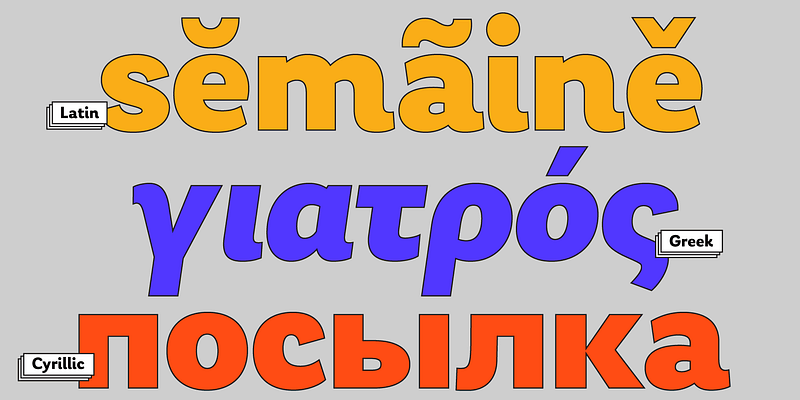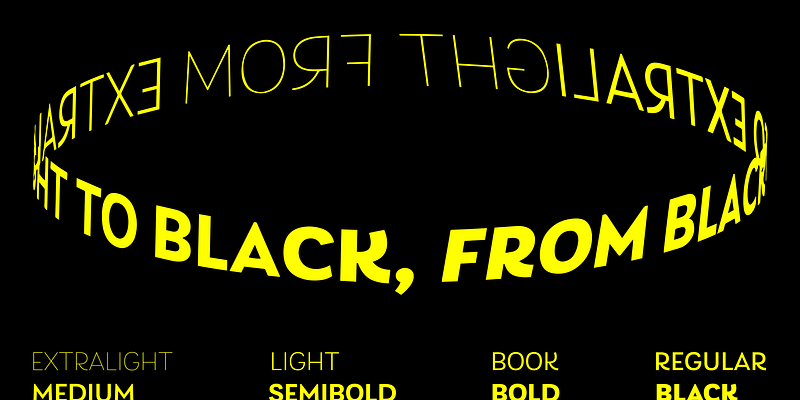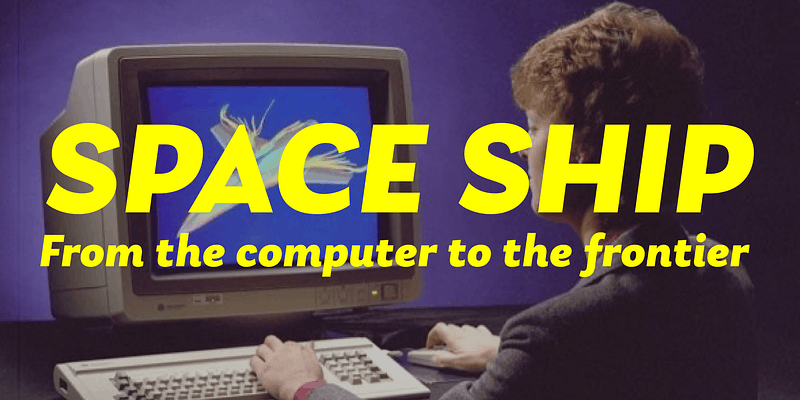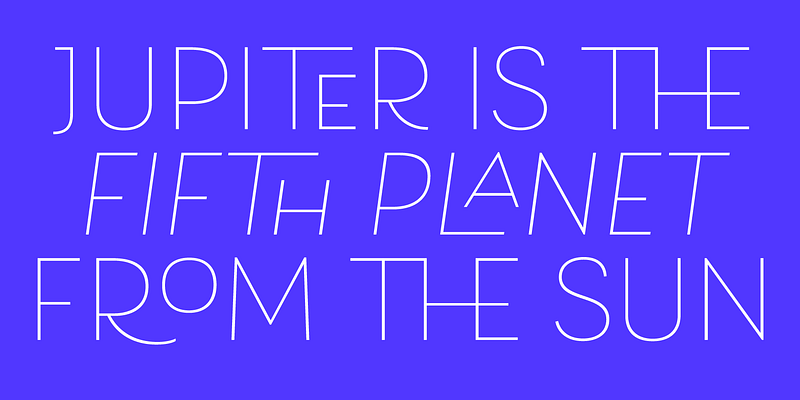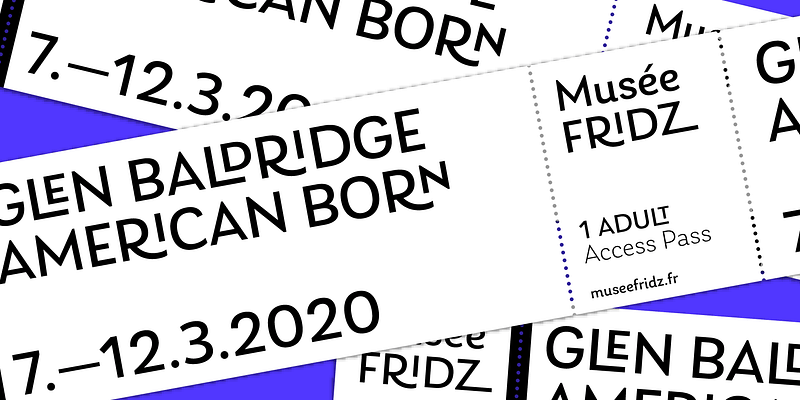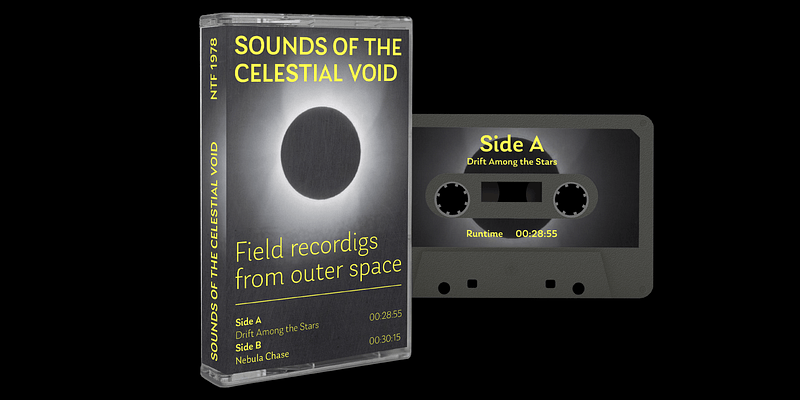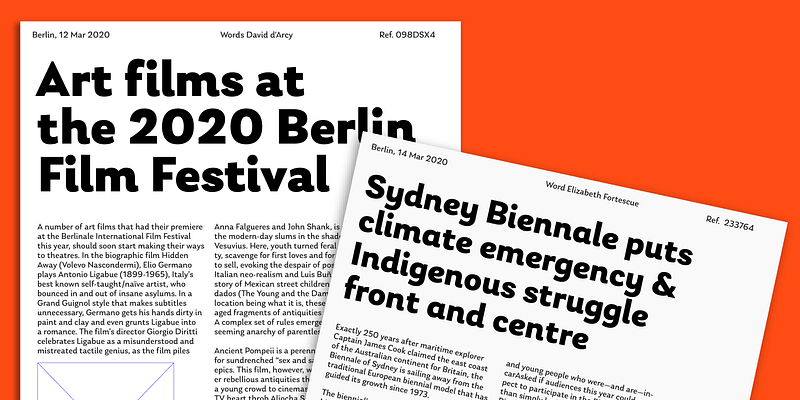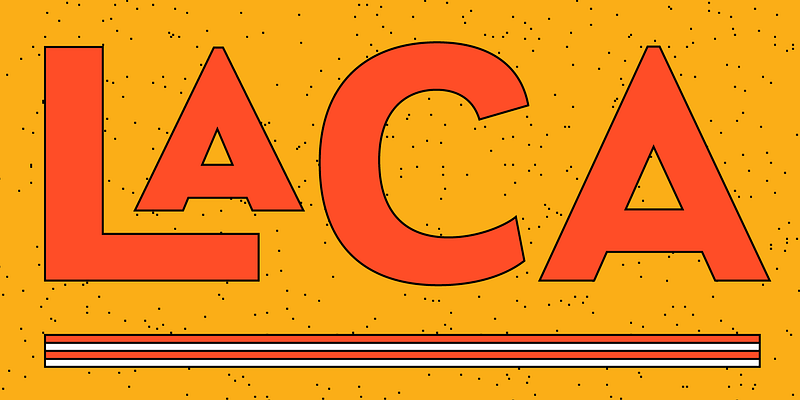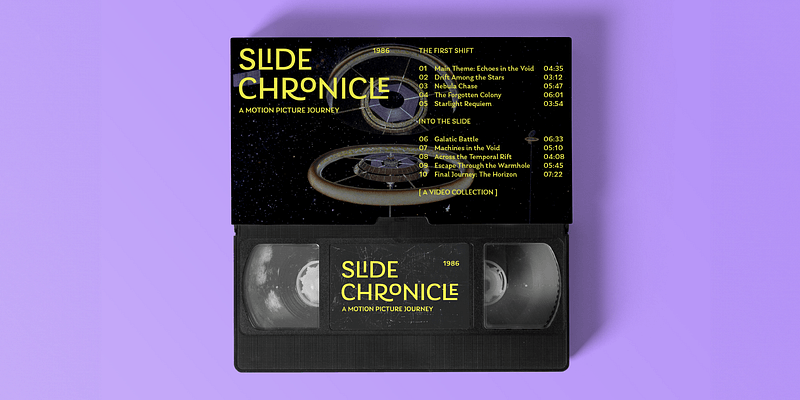
Laca is a semi-sans inspired by retro Portuguese packaging of soaps. It is a lively typeface that brings texture and personality to the text. Perfect for branding. It has OpenType features that bring alternatives to the designer.